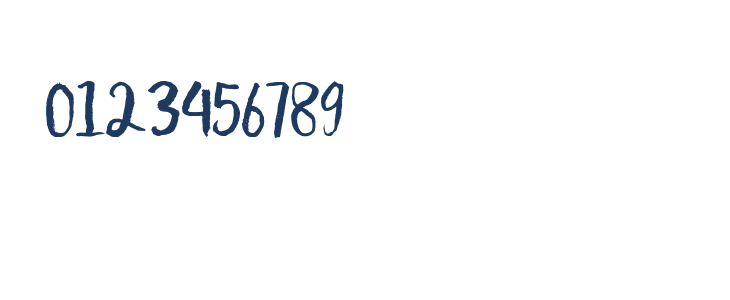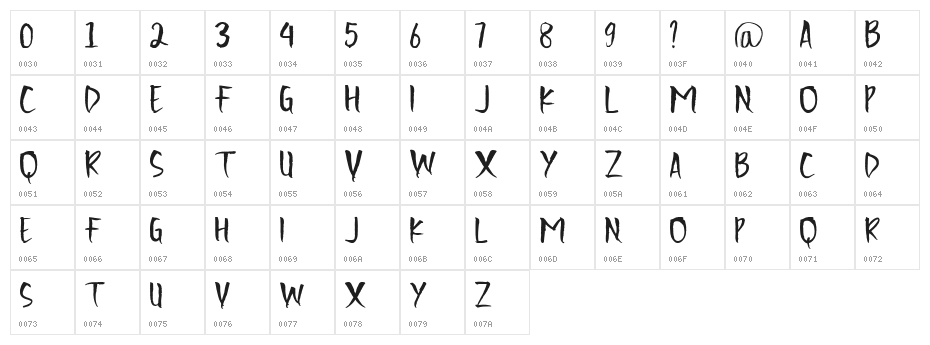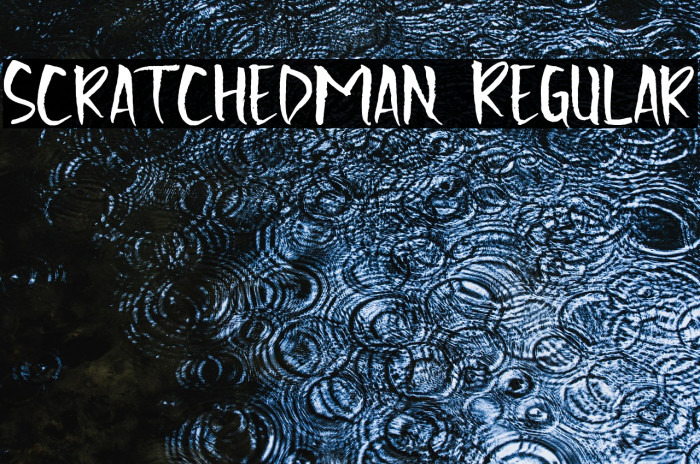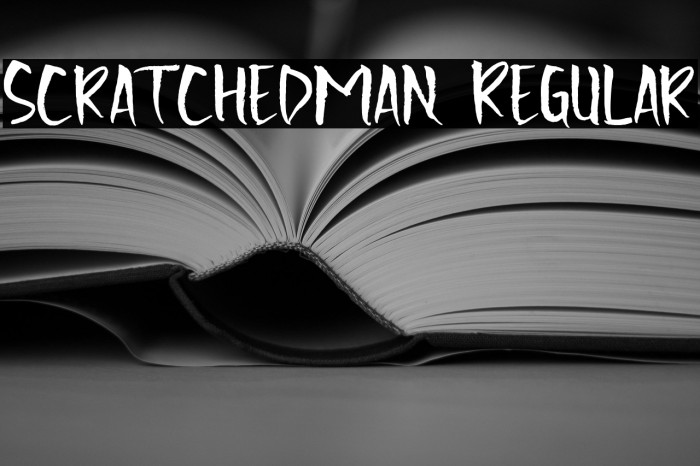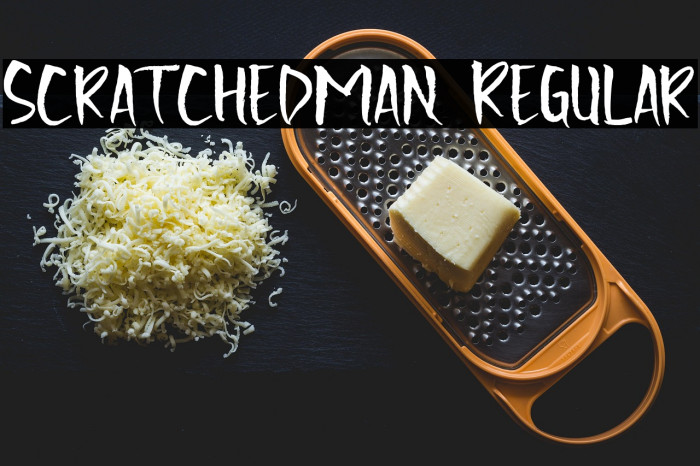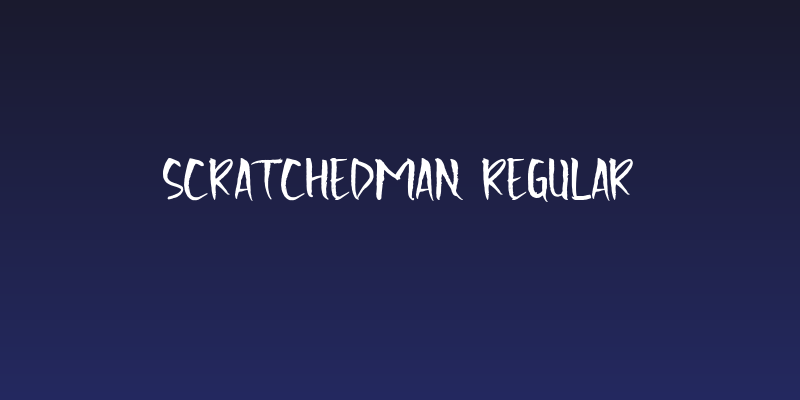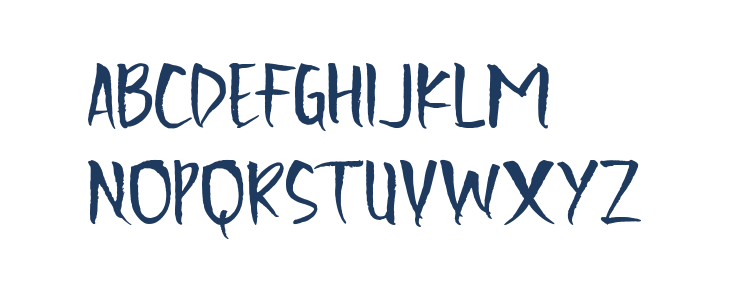
Scratchedman Regular Font
Scratchedman Regular Description
This font features a bold, hand-drawn style with a rough, textured appearance that mimics the look of brush strokes. The characters are slightly irregular, giving it a dynamic and energetic feel. The uppercase and lowercase letters maintain a consistent style, with sharp angles and a slightly condensed form. The numbers and special characters follow the same aesthetic, ensuring a cohesive look across all glyphs. This font is ideal for projects that require a bold, artistic touch, such as posters, album covers, or branding materials that aim to convey creativity and uniqueness.